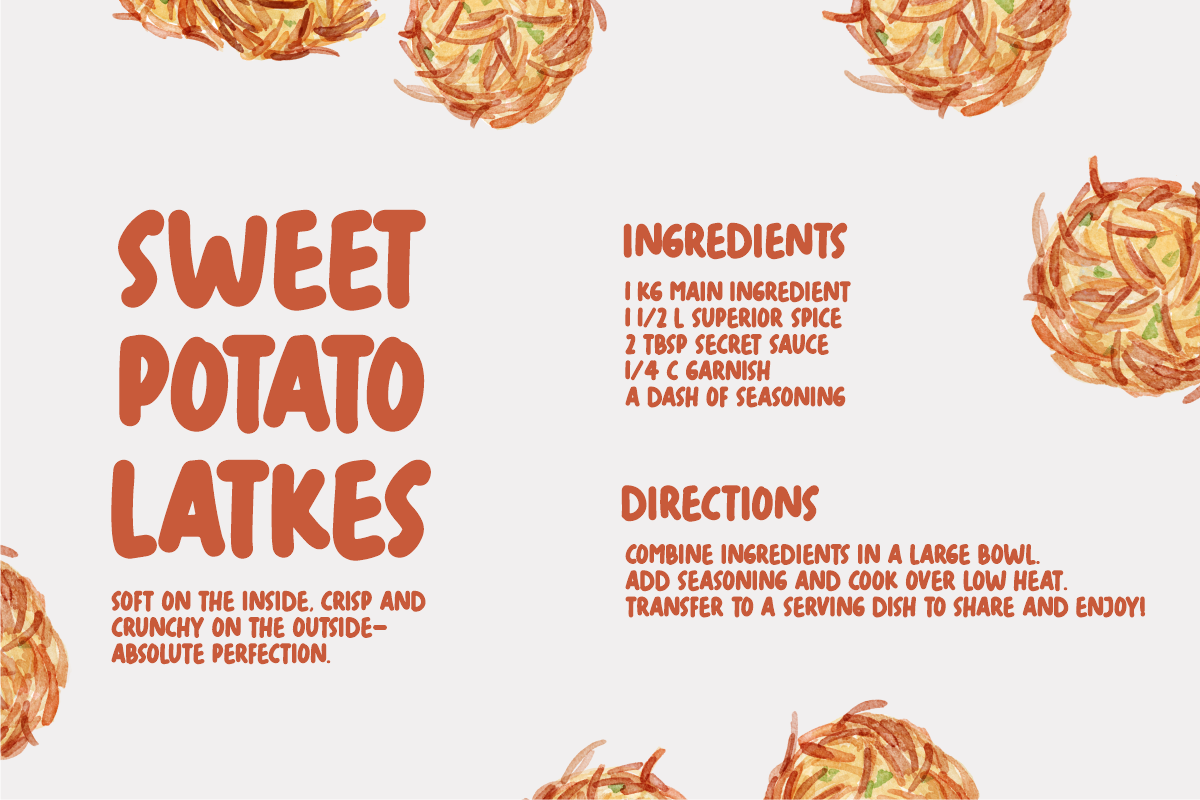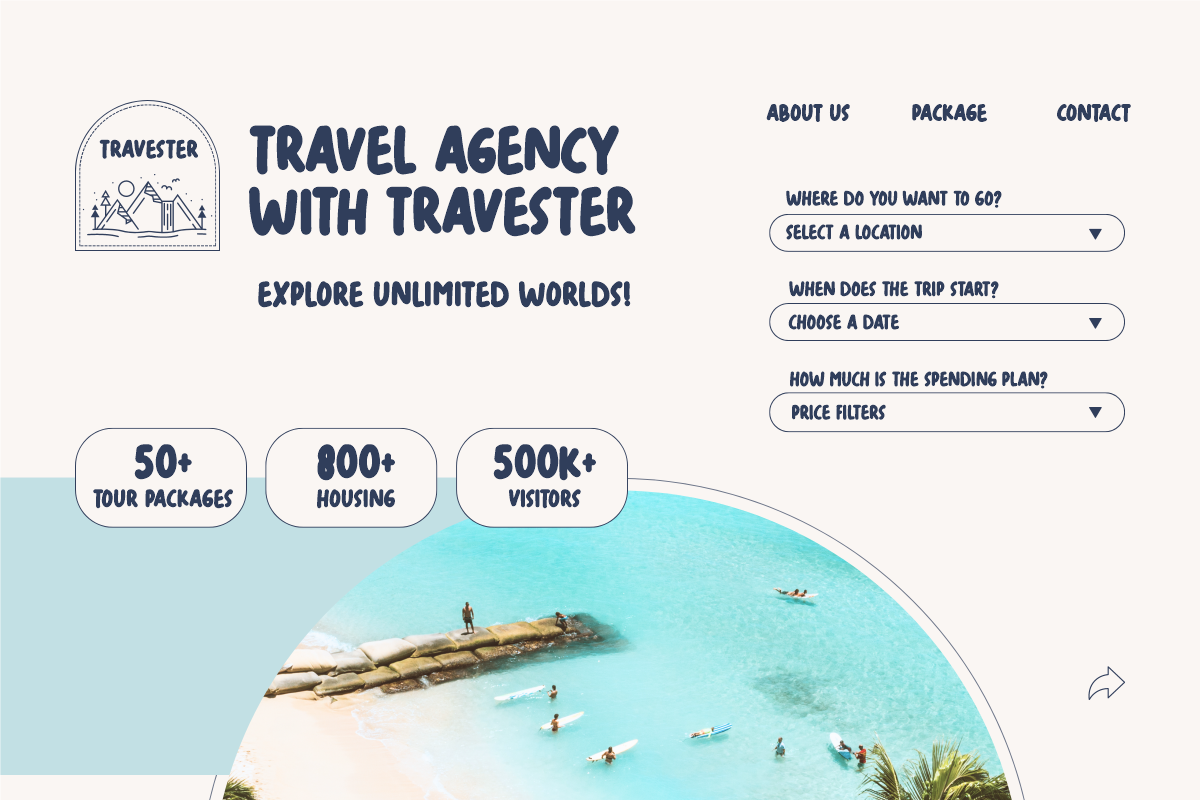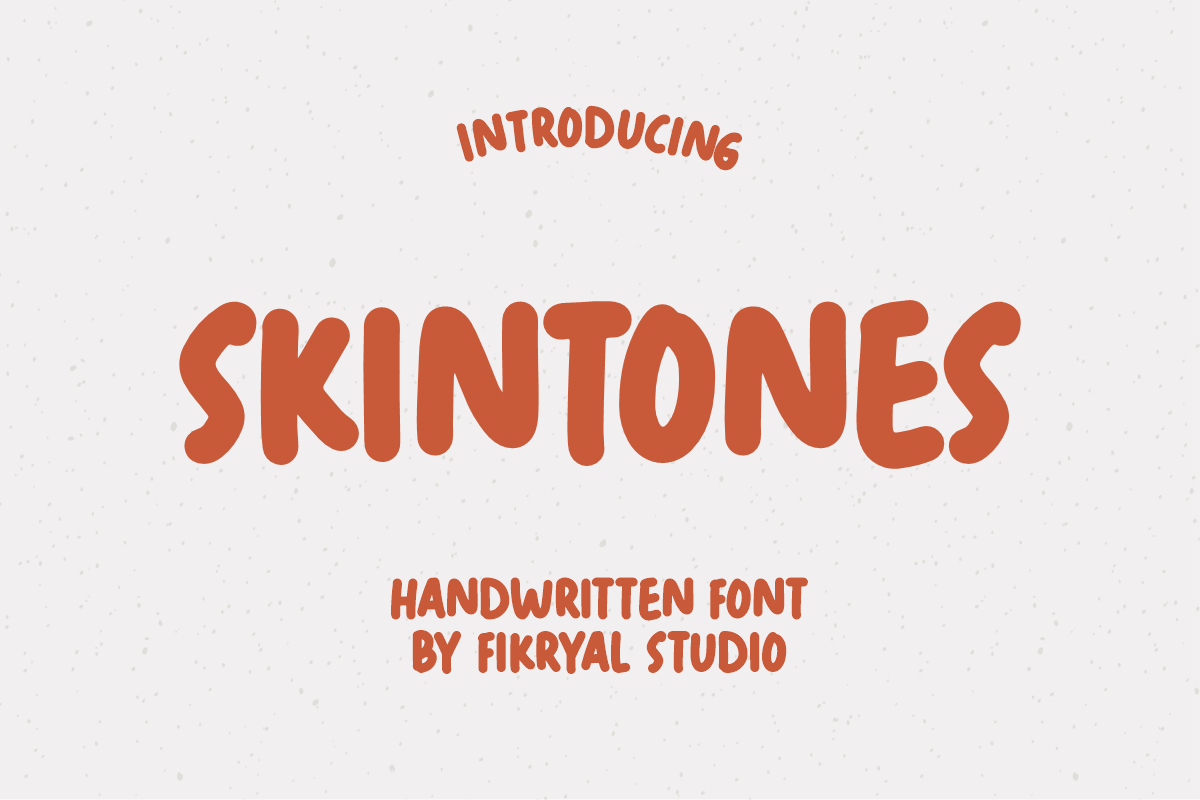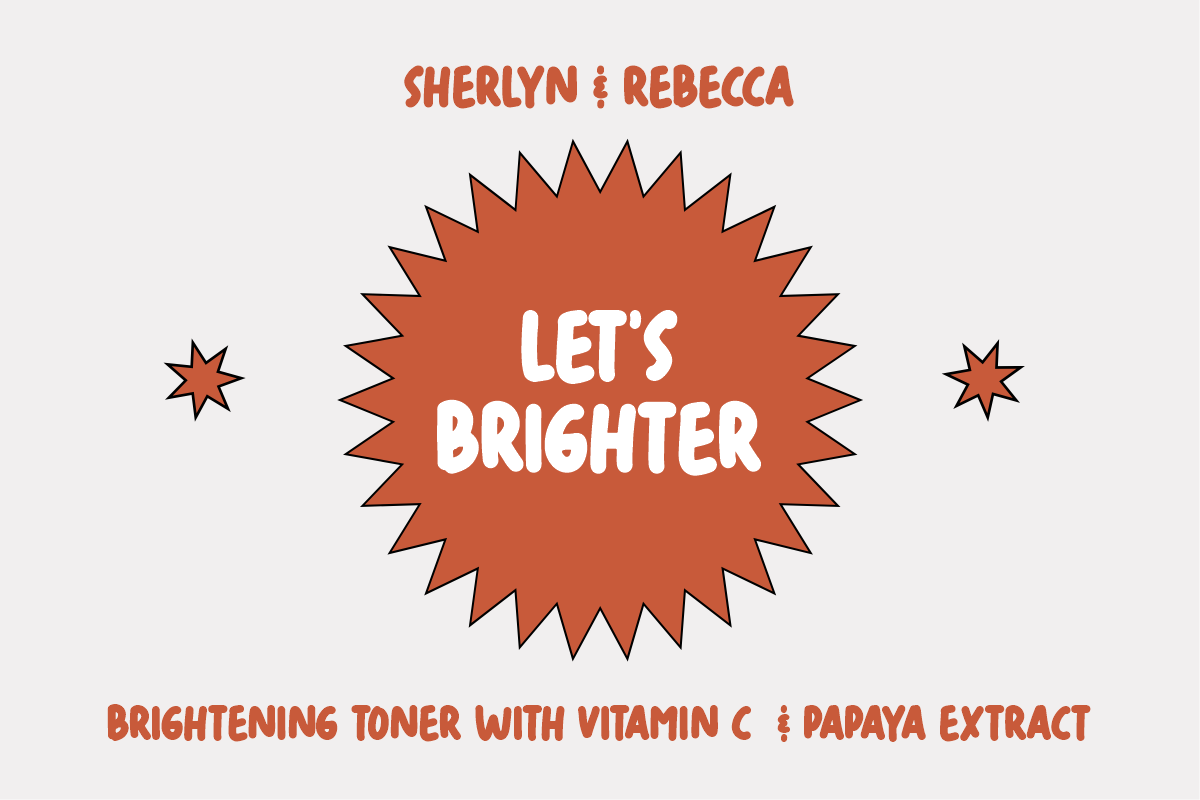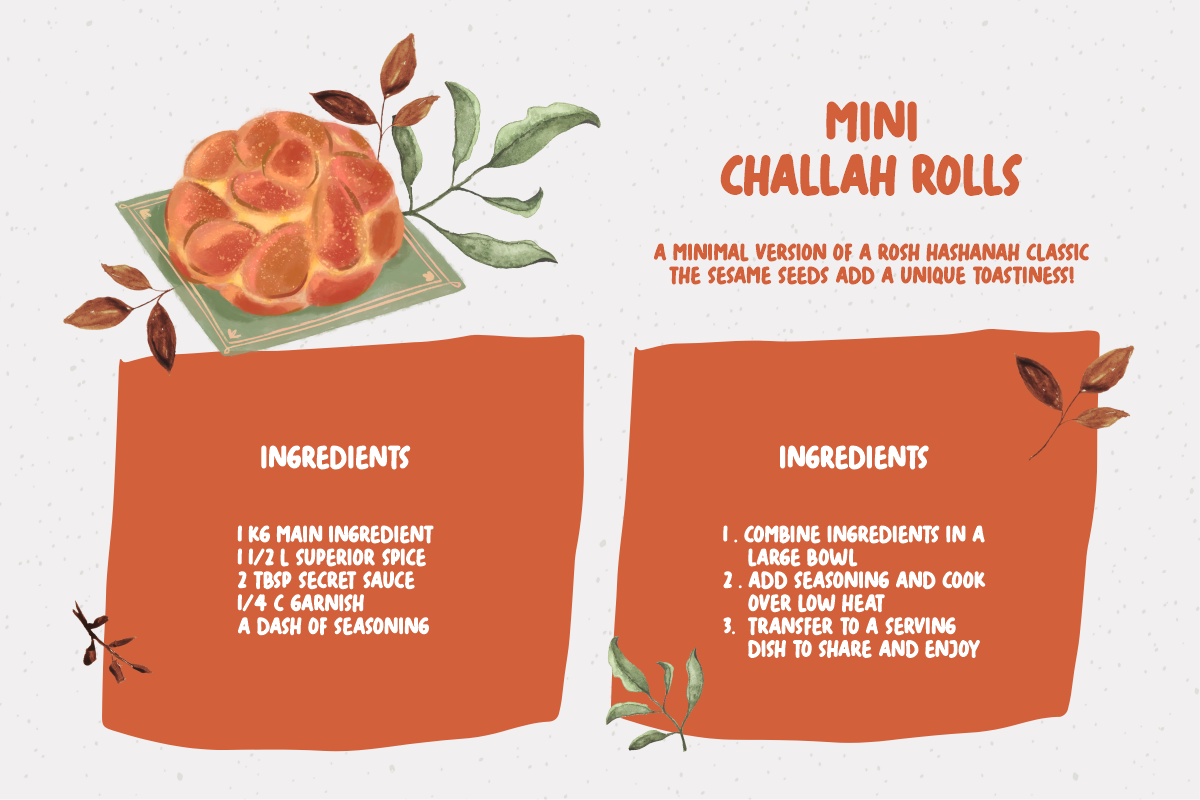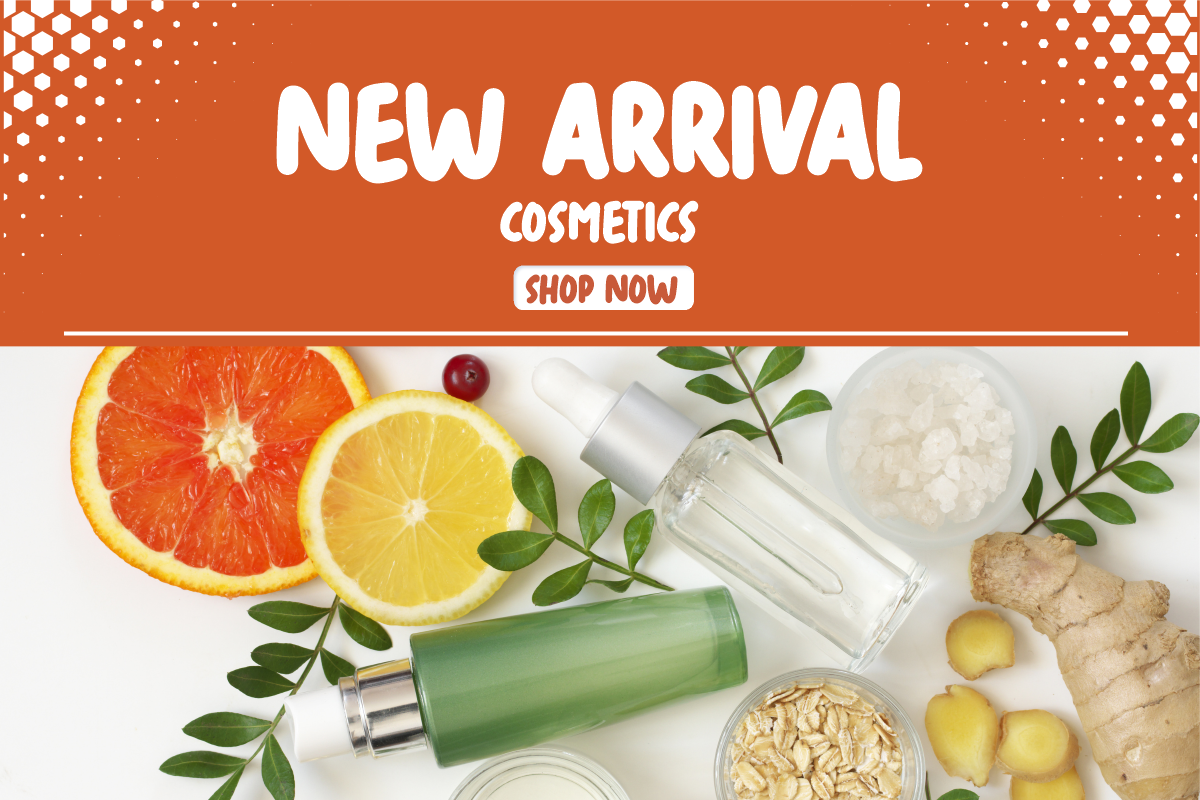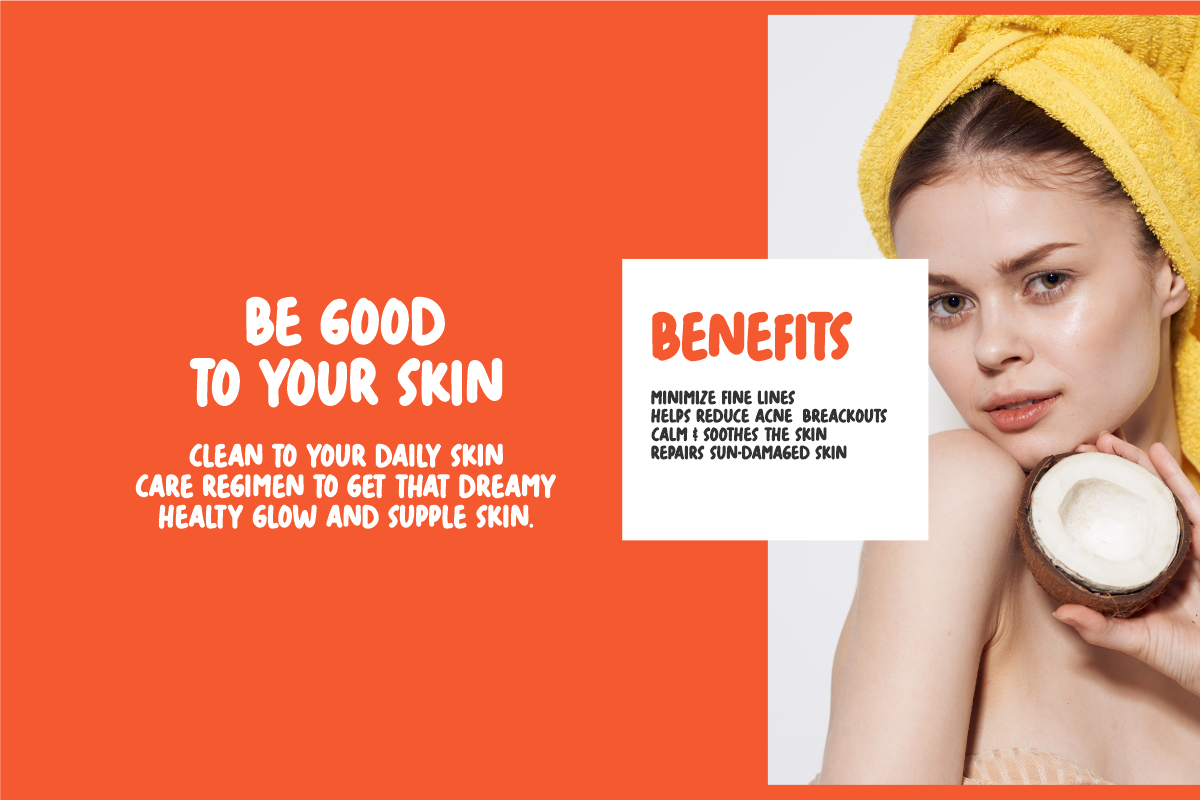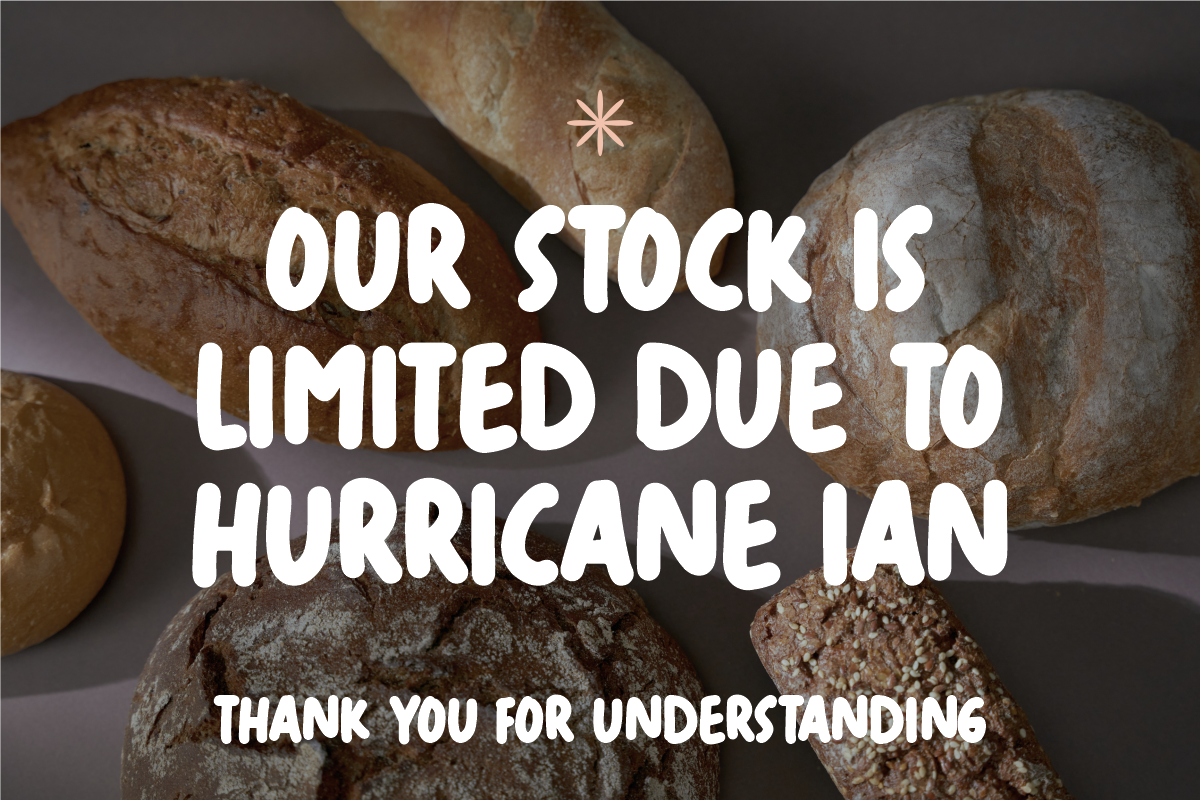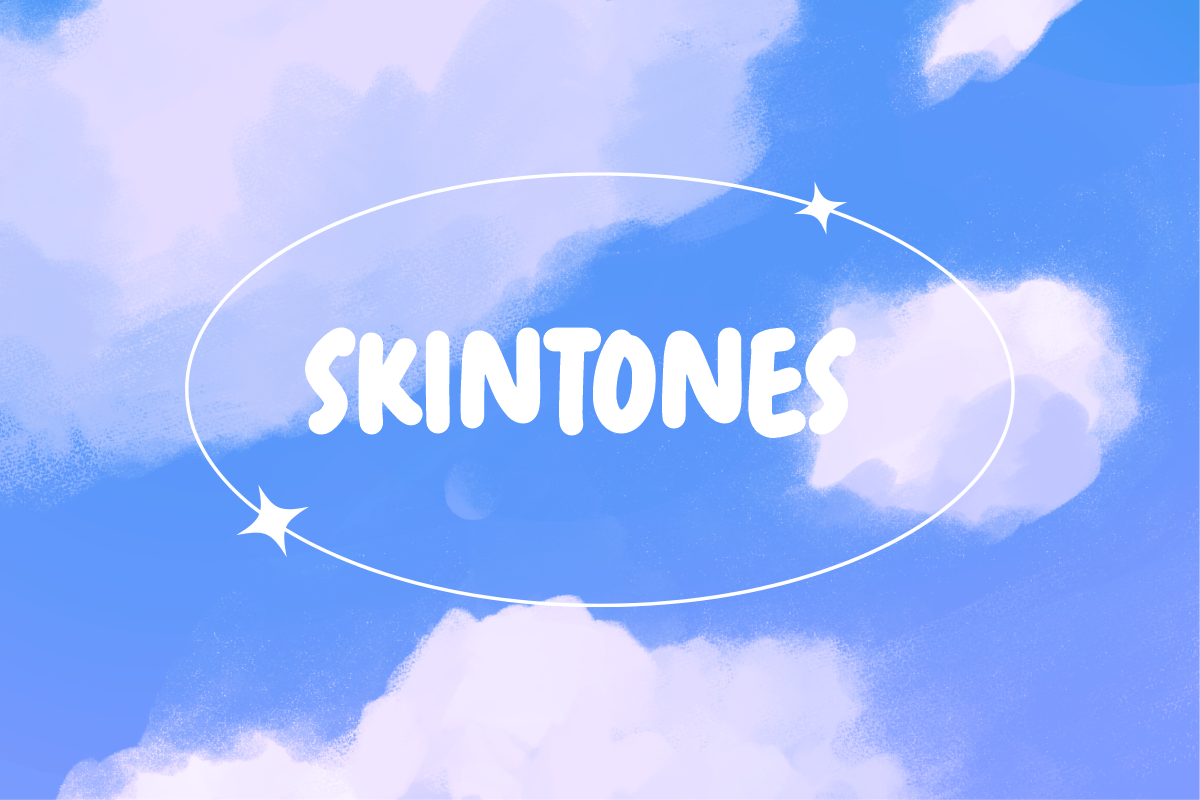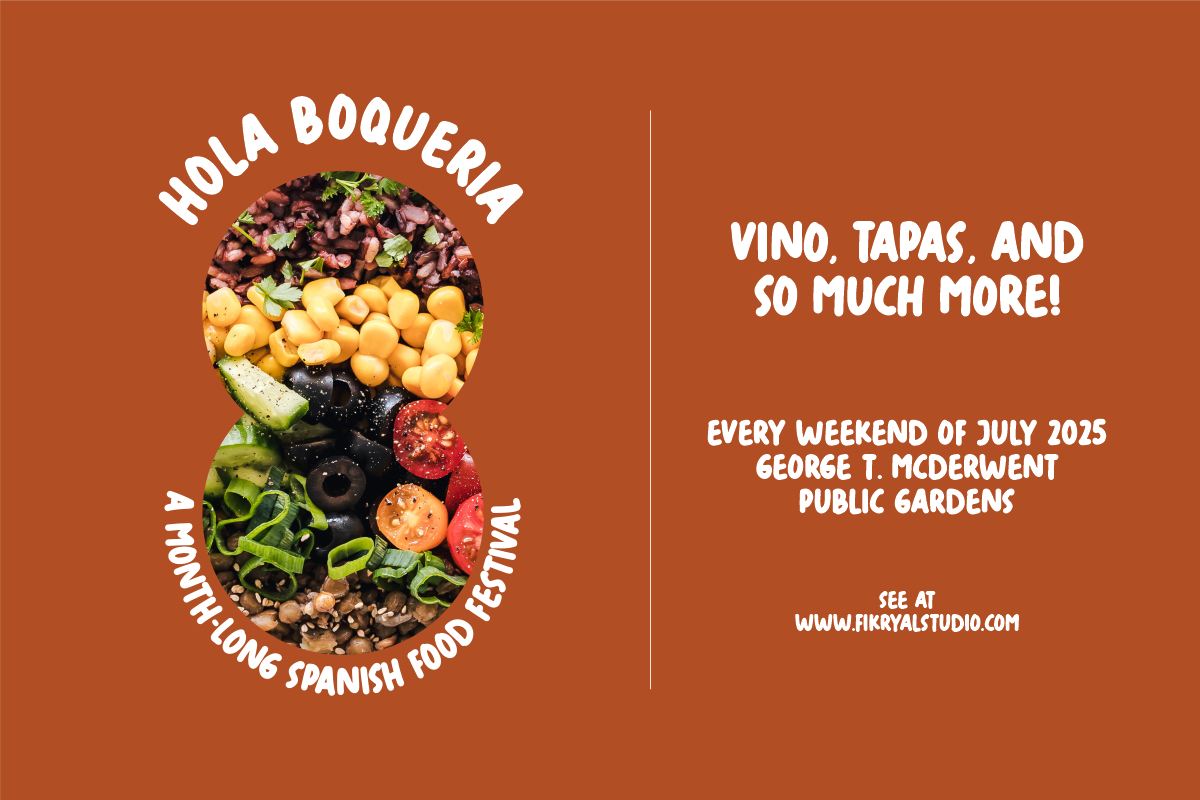
Skintones – Handwritten font
Skintones is a unique handwritten display font that captures beauty and diversity. With its elegant yet playful style, this font is perfect for a variety of projects, including branding, packaging, social media graphics, and more.
Skintones features a full set of uppercase letters, as well as numbers, punctuation, and multilingual support for a wide range of languages. Each character is meticulously crafted to evoke the fluidity and natural flow of handwriting while maintaining a clean and polished appearance.
What sets Skintones apart is its ability to convey a sense of warmth and humanity that is often missing from more sterile or impersonal fonts. Whether you’re designing a logo or creating a poster, Skintones will help you connect with your audience on a deeper, more professional level.
So if you’re looking for a font that celebrates diversity and individuality, look no further than Skintones. With its rich, vibrant character and unique style, it’s sure to make a lasting impression on anyone who sees it.